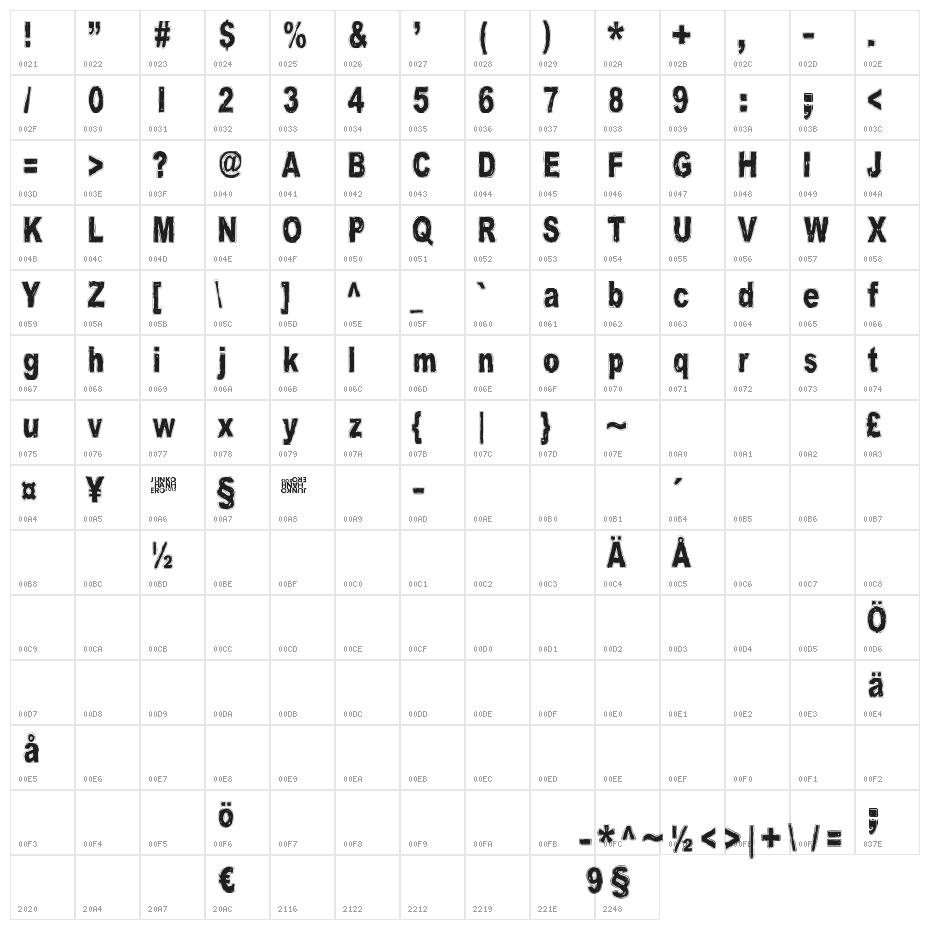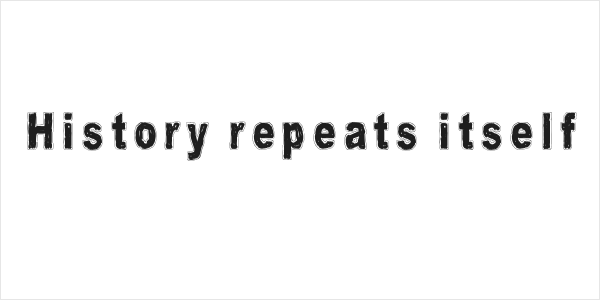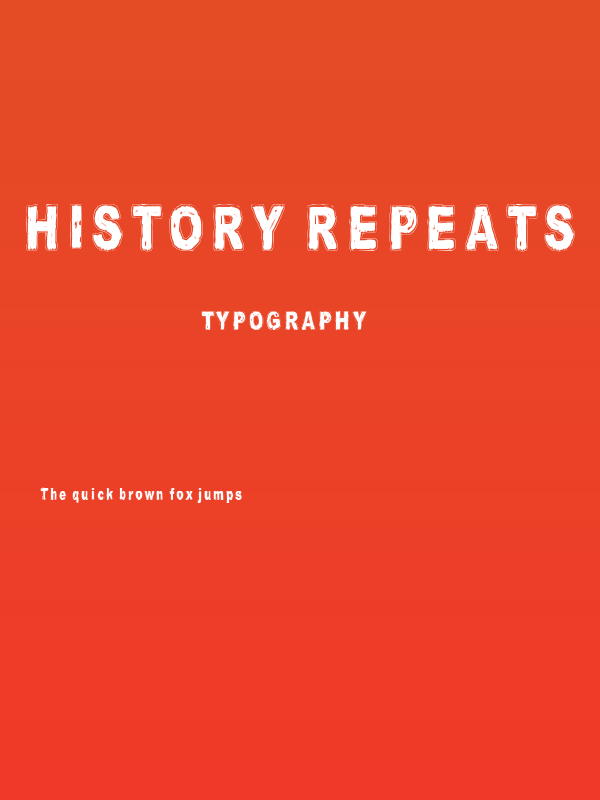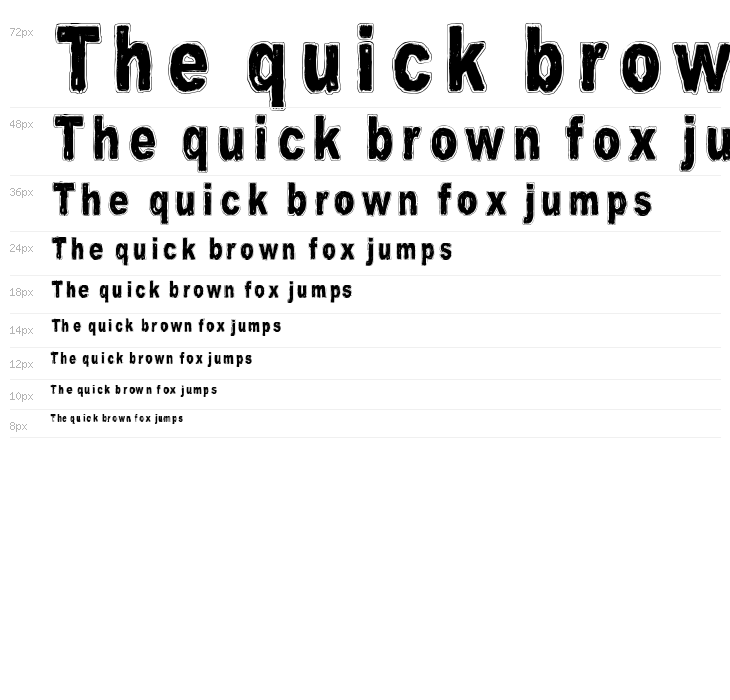
History repeats itself Font
History repeats itself Description
This font features a distressed, textured appearance, giving it a rugged and vintage feel. The characters are bold with a slightly uneven outline, suggesting a hand-crafted or stamped look. The uppercase and lowercase letters maintain a consistent style, with the numbers and special characters following suit. This font's unique, worn aesthetic makes it stand out, perfect for projects that require a touch of nostalgia or a rustic vibe. The texture adds depth and character, making it suitable for designs that aim to evoke a sense of history or authenticity.
| Proposed Projects | Ideal for vintage posters, retro-themed branding, rustic packaging, or any design needing a historical touch. |